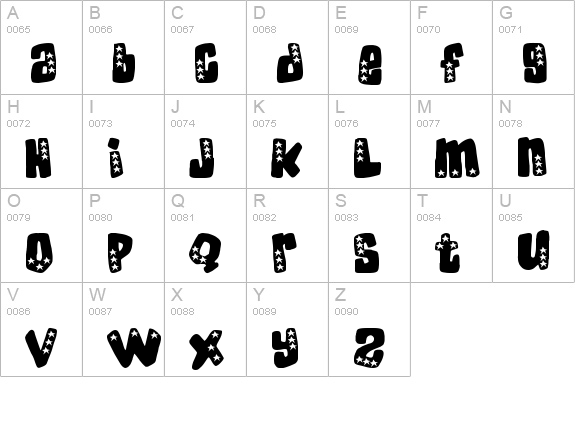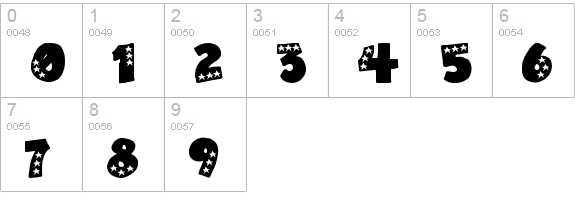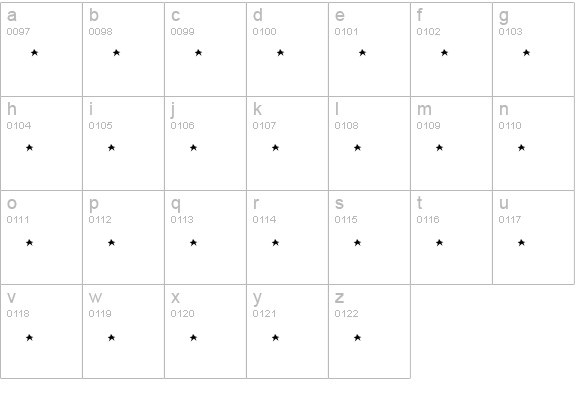
American Donuts font is a delightful and playful typeface that captures the essence of classic American donut shop signage. With its bold and rounded letterforms, this font exudes a sense of fun and nostalgia, making it perfect for a wide range of design projects. Whether you're creating a whimsical poster, a charming logo, or a sweet greeting card, American Donuts font will add a touch of warmth and Americana to your work. Best of all, American Donuts font is completely free to download at FontsMarket.com. So go ahead and add this charming typeface to your collection today and let your creativity soar with its deliciously retro vibes.